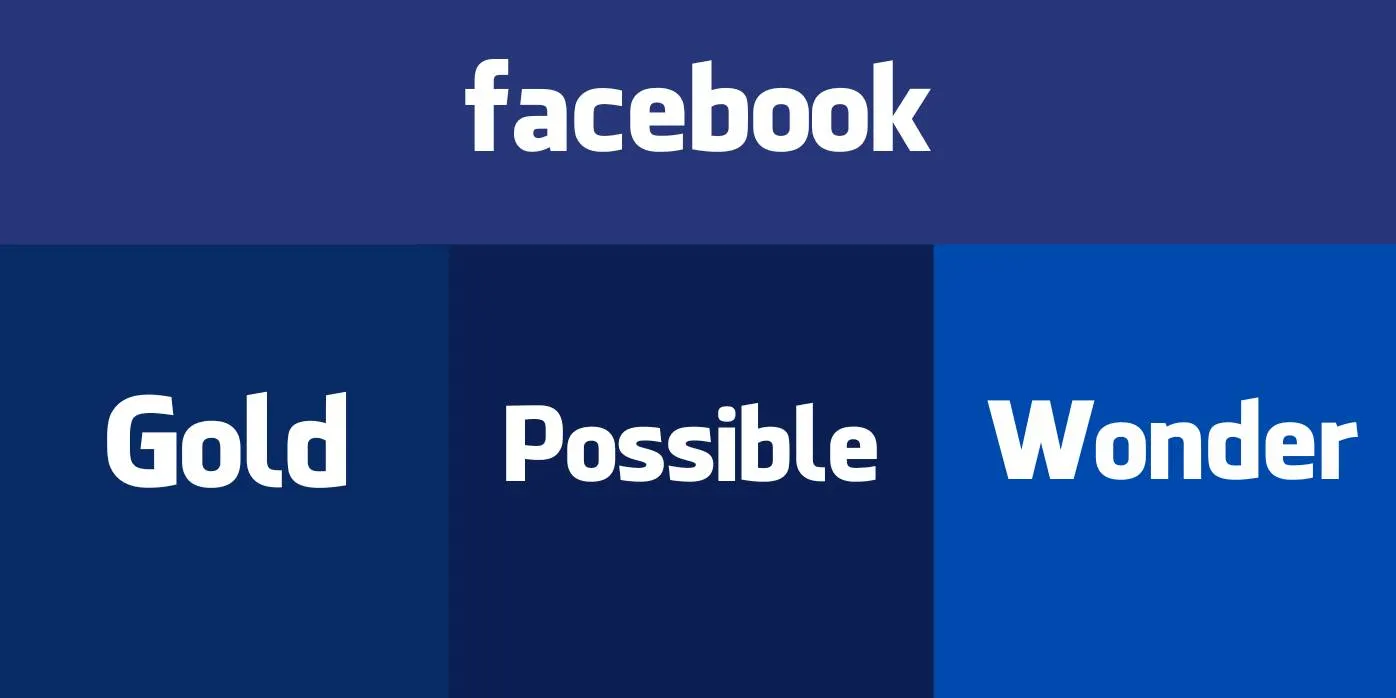
Facebook Font
Now we talk about another famous typeface Facebook font. This stunning font was designed by Mike Buzzard. Klavika. It is a Sans-Serif font and can be used to design many amazing posts on social media.
Facebook is the most famous website on social media. It is a very old font with a modern touch. But it has developed over time.  New features and fonts were also launched for this website. This font contains more than 300 characters, 200 glyphs, and 1000 units per Em.
The weight of the font is bold and its with is medium (normal). Embedding rights are allowed for preview and printing only. An online Facebook generator also supports this font in which you can make simple text to convert into stylish and modern designs by copying and pasting your text. You can see emojis, stickers, GIFs, and much more in it.
It has many closest fonts of big organizations like Toyota. It has high readability as well Usage As you know Facebook has become a brand now and the most famous social media website. You can make amazing designs by using this font. It can be used to design all social media posts related to Facebook.
You can make stories videos all types of posts by using this font. To make graphic designs and website and graphic designs you can utilize this font as well. It can be used in various applications like Adobe Photoshop CSS and Canva to make attractive designs. For making Facebook post-related banners, posters and flyers can also be made with this font.
Klavika. It is a Sans-Serif font and can be used to design many amazing posts on social media. Who designed the Facebook website? This famous website was designed by Mark Zuckerberg and now it is the most famous social media website.